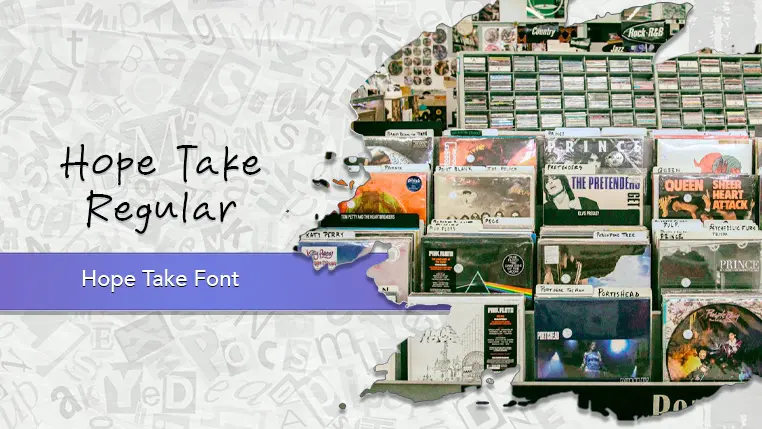
The Hope Take font family may be ideal for you if you enjoy working on an artistic design project. The lively, expressive look of this typeface, which was created by Khurasan, makes it ideal for Logos and branding for streetwear, indie music labels, or urban-inspired businesses, Posters and flyers for concerts, music festivals (especially rock, hip-hop, or alternative genres), or extreme sports events, Graphics for social media content targeting a younger, trend-conscious audience, Album covers or single art for energetic music genres. T-shirt designs, merchandise, or custom apparel. Titles for vlogs or creative video content, especially those with a dynamic or rebellious tone. and other light-hearted visual projects.
Regular are the one primary font styles of the Hope Take font family. You may build dynamic, visually appealing text layouts with the distinct flair that each style offers. With crisp, readable lines and a relaxed tone.